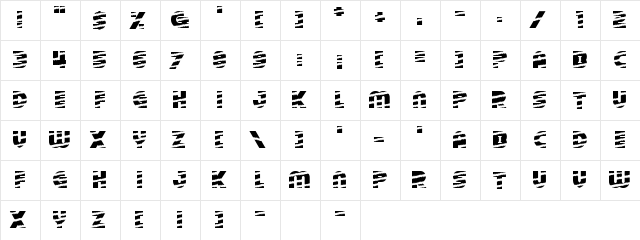
Tinsel Christmas Regular
Design Context for Tinsel Christmas Typeface
Tinsel Christmas is a composed and adaptable typeface that performs quietly and consistently across a wide range of design contexts.